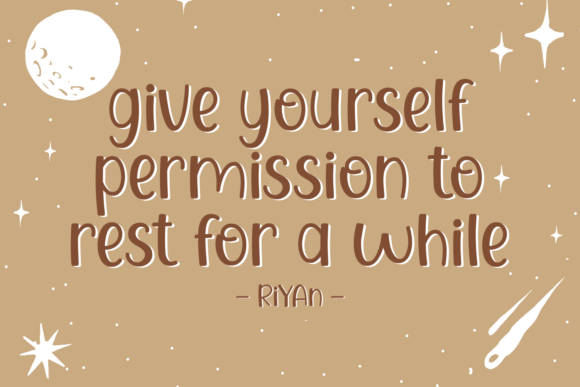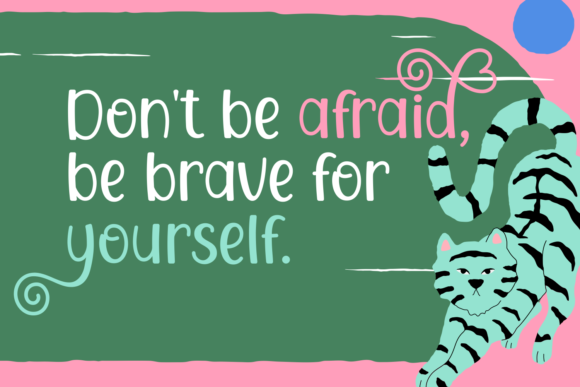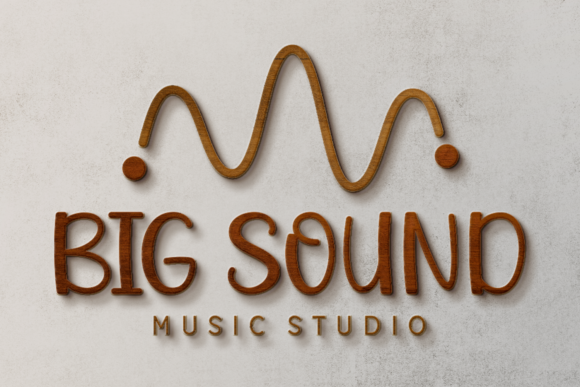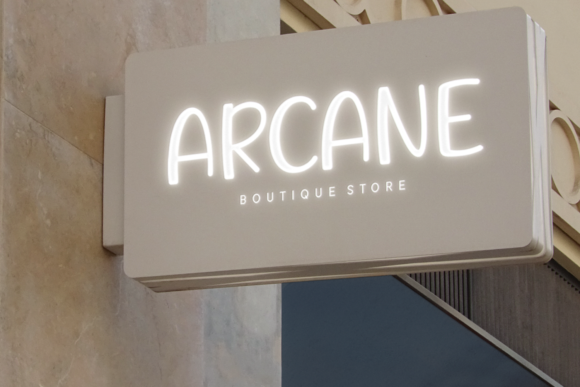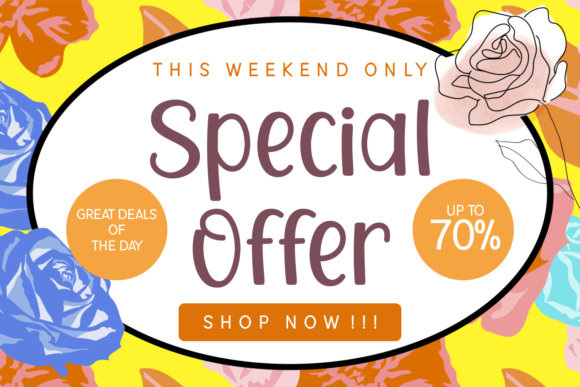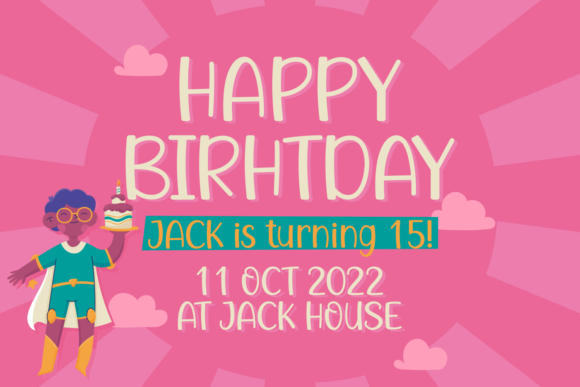
Introduction to Serlyna Font
Imagine you’re sitting at your desk, surrounded by scraps of paper, glue, and a messy workspace. You’re brainstorming ideas for a wedding invitation, and you stumble upon the perfect combination of elegance and whimsy. That’s where Serlyna Font comes in – a stunning display font that’s sure to elevate your creative project.
As designers, we’re always on the lookout for high-quality design resources that can make our work stand out. And that’s exactly what Serlyna Font offers – a gorgeous, feminine typeface with gorgeous swirls and heart alternatives that’s perfect for branding, logos, quotes, and more. Whether you’re working on a free download or a paid project, Serlyna Font is a valuable addition to your design arsenal.
With its transparent background and versatility, Serlyna Font is a must-have for any designer looking to add a touch of sophistication to their work. So why settle for anything less when you can have a high-quality, elegant font like Serlyna Font at your fingertips?
Key Features of Serlyna Font
- Unique, elegant script font with a transparent background, perfect for adding a touch of sophistication to your designs.
- Designed to be versatile, suitable for a wide range of creative projects, from wedding invitations to branding materials.
- Easy to customize and edit, making it an excellent choice for designers who value flexibility and precision.
Honest Review: Serlyna Font
I recently had the chance to try out the Serlyna Font, and I must say it’s been a game-changer for my creative projects. The font’s high quality is immediately noticeable, with clean lines and a sophisticated feel that elevates any design.
- ✨ Beautifully crafted letters with a unique flair
- ✨ Versatile and suitable for a wide range of creative projects, from logos to typography
Overall, I’m really impressed with the Serlyna Font. It’s a high-quality design resource that I’ll definitely be using for future projects. If you’re looking for a reliable and professional font, I’d highly recommend giving it a try.
Tips for Getting the Most Out of Serlyna Font
Use the Serlyna Font in combination with a transparent background to create a modern and sleek design. Experiment with different font sizes and styles to add visual interest to your project. Consider using the font in conjunction with other design elements, such as images and graphics, to create a unique and creative project.
Common Use Cases for Serlyna Font
The Serlyna Font is a versatile design resource that can be used in a variety of creative projects, including graphics, presentations, and documents. It’s particularly well-suited for use in modern and minimalist designs, where a clean and simple font can help to convey a sense of professionalism and sophistication.